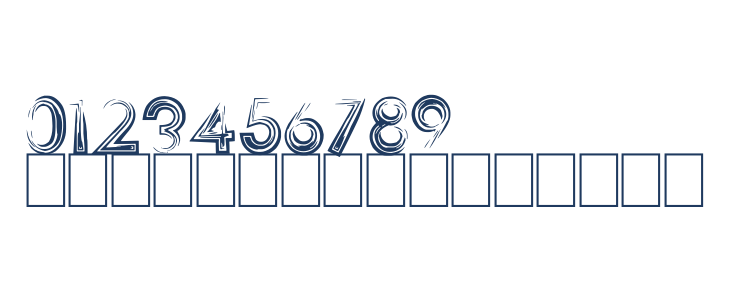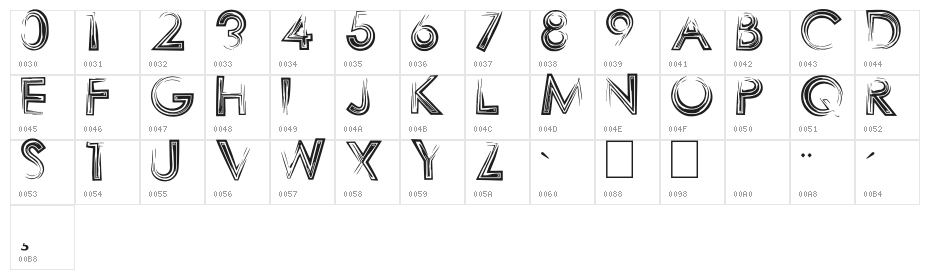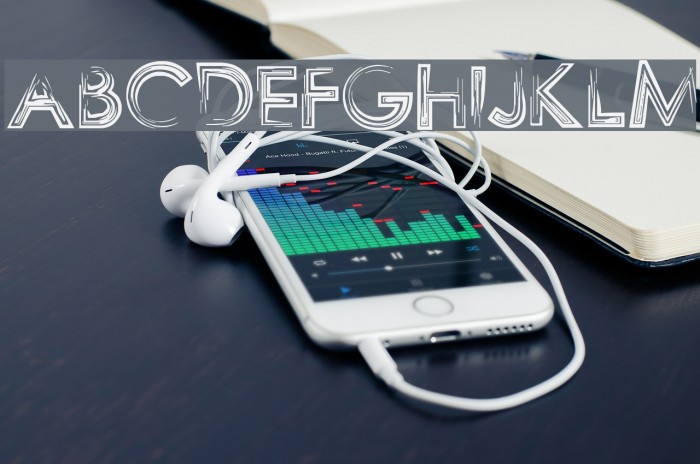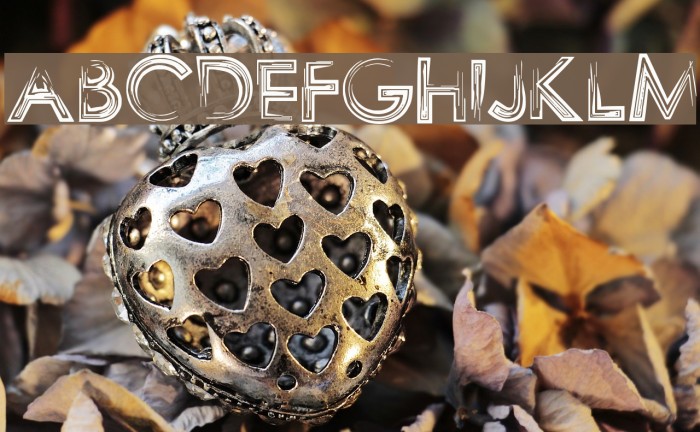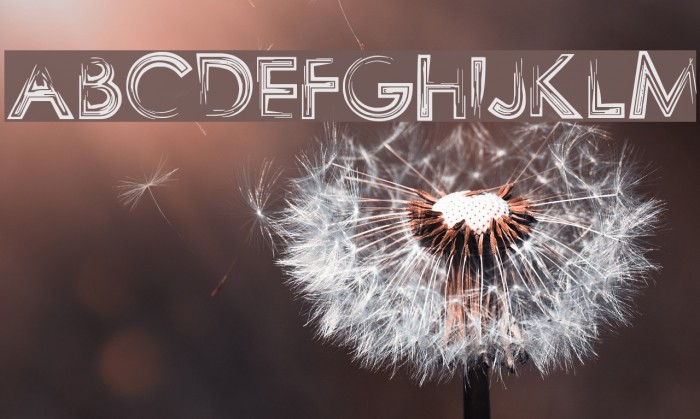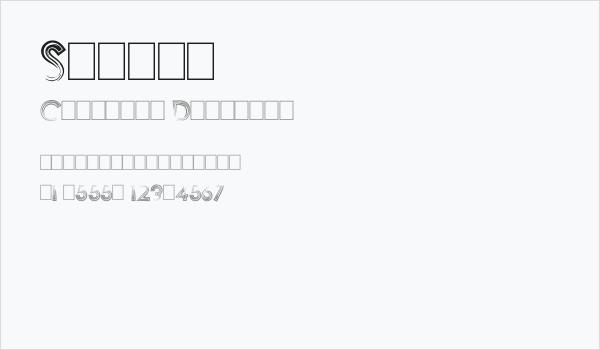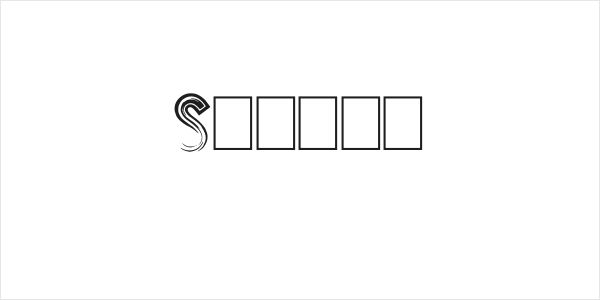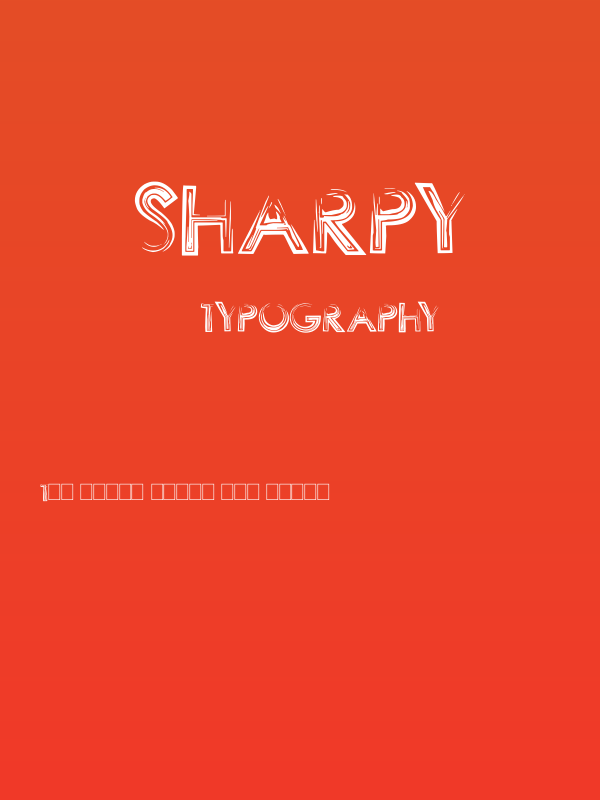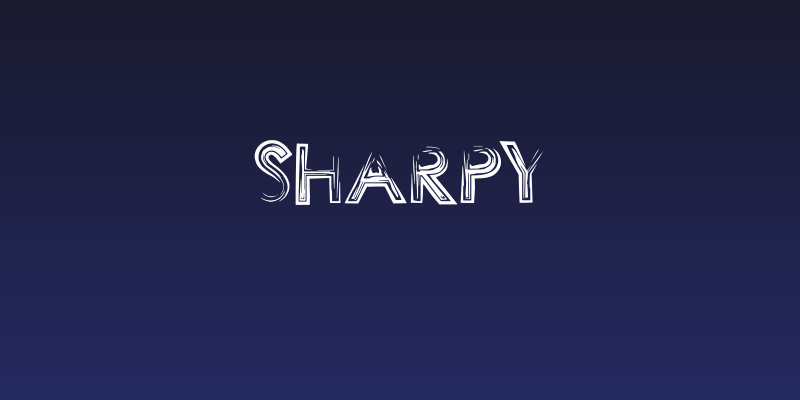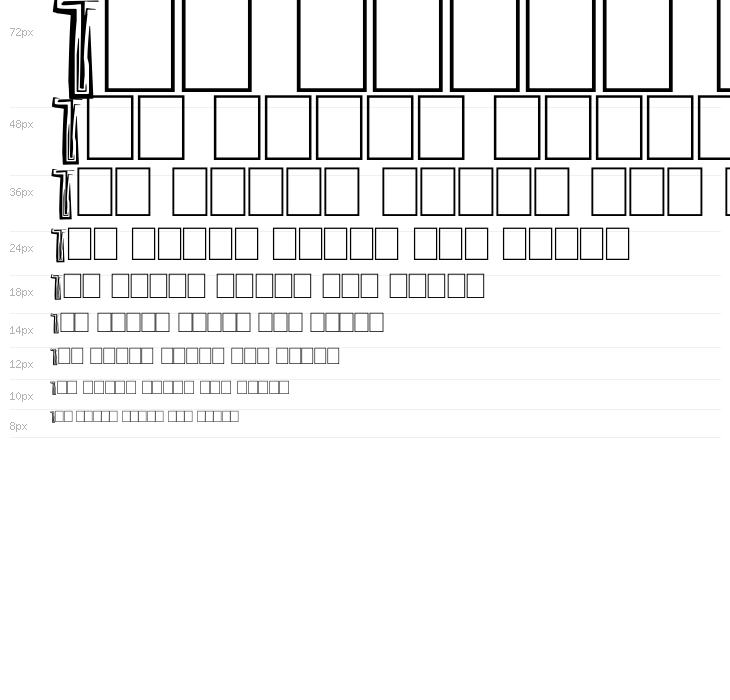
Sharpy Font
Sharpy Description
This font features a bold and dynamic design with sharp, angular edges and a distinct three-dimensional effect. The letters are characterized by a combination of thick and thin strokes, creating a high contrast that adds depth and visual interest. The style is modern and edgy, making it suitable for attention-grabbing headlines and creative projects. The uppercase and lowercase letters maintain a consistent design, while the numbers and special characters follow the same bold and striking aesthetic. The overall appearance is both artistic and contemporary, ideal for projects that require a strong visual impact.
| Proposed Projects | Ideal for posters, logos, branding, and any project requiring a bold, modern look. |